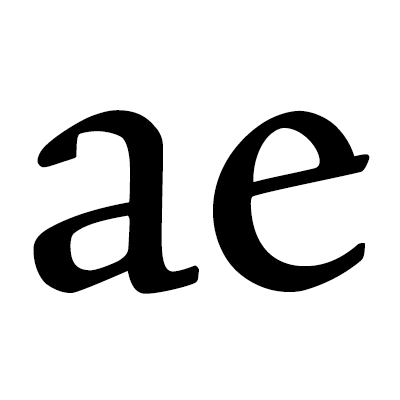
Roman refers to the upright styles of the Latin script in contrast to italic styles or special categories such as blackletter.
Dutch: romein
French: romain
German: Antiqua, aufrecht
Italian: carattere [tipografico] romano, tondo (as opposed to italic)
Spanish: Romana
Related Term(s): Style